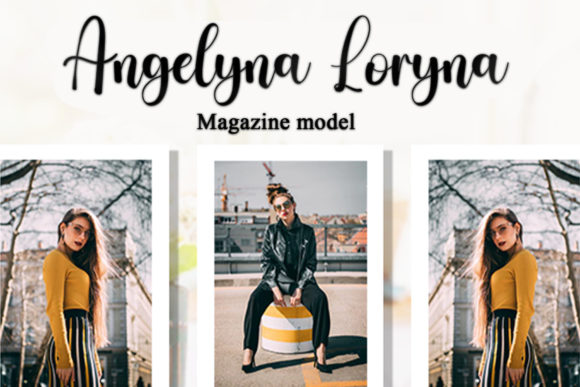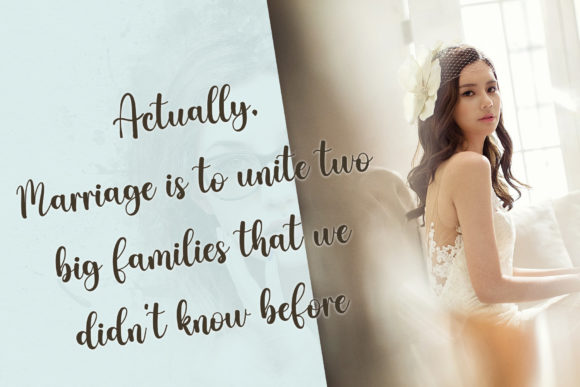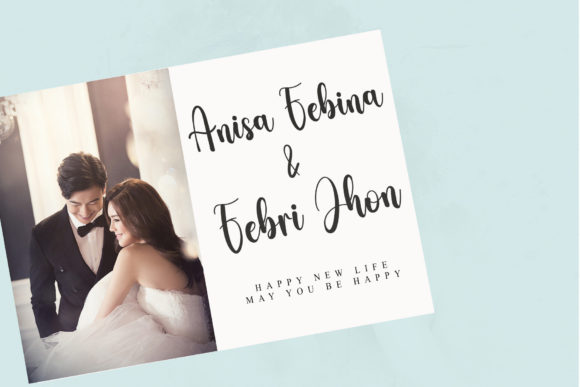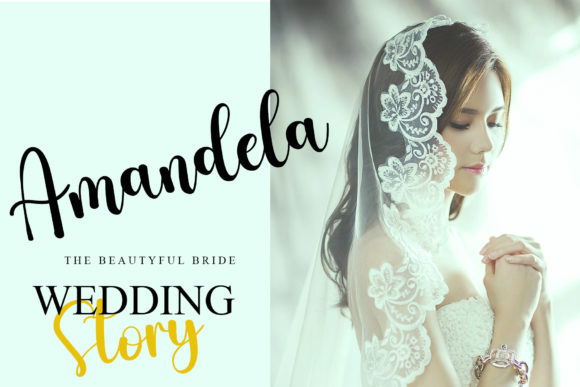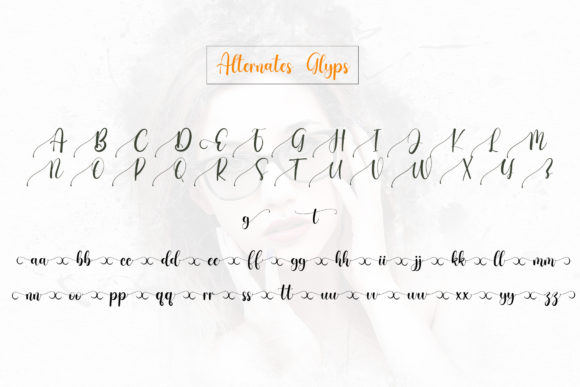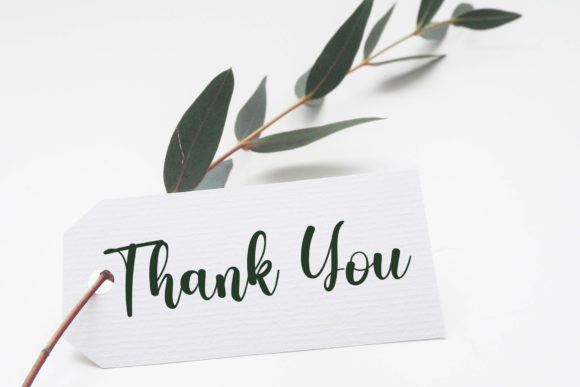
Discover the Enchanting Font: Elevate Your Designs with Elegance and Charm
Are you a designer or crafter looking for a font that exudes elegance and charm? Look no further than the Enchanting Font. This beautiful, handwritten font is perfect for adding a touch of sophistication to any design project. In this article, we’ll explore the features and benefits of the Enchanting Font, and show you how it can elevate your designs to the next level.
A Font that Feels Equally Charming and Elegant
The Enchanting Font is a true gem, boasting a unique blend of charm and elegance that makes it perfect for a wide range of design applications. Whether you’re creating wedding invitations, thank you cards, quotes, greeting cards, logos, or business cards, this font is sure to impress. Its beautiful, flowing script and delicate lines make it a versatile choice that will add a touch of whimsy and romance to any design.
Stunning on a Variety of Design Projects
One of the things that sets the Enchanting Font apart is its incredible versatility. It looks stunning on a wide range of design projects, from formal wedding invitations to playful greeting cards. Here are just a few examples of the many design projects where the Enchanting Font shines:
- Wedding Invitations: Add a touch of romance and elegance to your wedding invitations with the Enchanting Font. Its beautiful script and delicate lines make it perfect for formal and informal wedding invitations alike.
- Thank You Cards: Express your gratitude in style with the Enchanting Font. Its charming and elegant design makes it perfect for thank you cards, gift tags, and other expressions of appreciation.
- Quotes: Add a touch of whimsy and inspiration to your quotes with the Enchanting Font. Its beautiful script and flowing lines make it perfect for social media graphics, posters, and other quote-based designs.
- Greeting Cards: From birthday cards to holiday cards, the Enchanting Font is perfect for any occasion. Its charming and elegant design makes it a versatile choice that will add a touch of sophistication to any greeting card.
- Logos: Add a touch of elegance and sophistication to your logo with the Enchanting Font. Its beautiful script and delicate lines make it perfect for businesses and brands that want to convey a sense of refinement and luxury.
- Business Cards: Make a lasting impression with the Enchanting Font. Its charming and elegant design makes it perfect for business cards, letterheads, and other corporate materials.
One of the things that sets the Enchanting Font apart is its PUA (Private Use Area) encoding. This means that you can access all of the font’s glyphs and swashes with ease, giving you unparalleled creative control over your designs. With the Enchanting Font, you can:
- Access a wide range of glyphs and swashes: From elegant flourishes to playful ornaments, the Enchanting Font offers a wide range of glyphs and swashes that you can use to customize your designs.
- Create unique and personalized designs: With the Enchanting Font’s PUA encoding, you can mix and match glyphs and swashes to create truly unique and personalized designs that reflect your brand or style.
- Save time and effort: The Enchanting Font’s PUA encoding makes it easy to access the glyphs and swashes you need, saving you time and effort in the design process.
In conclusion, the Enchanting Font is a beautiful, elegant, and charming font that is perfect for designers and crafters looking to add a touch of sophistication to their designs. With its PUA encoding and wide range of glyphs and swashes, this font offers unparalleled creative control and versatility. Whether you’re creating wedding invitations, thank you cards, quotes, greeting cards, logos, or business cards, the Enchanting Font is sure to impress. So why wait? Download the Enchanting Font today and start elevating your designs to the next level!